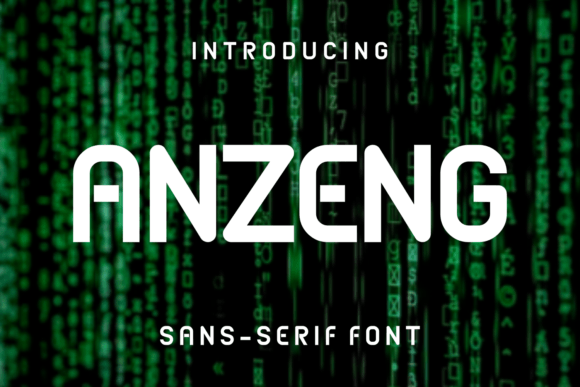
The Ultimate Guide to Anzeng Font: Elevate Your Designs with this Unique Sans Serif
I’ll never forget the time I was working on a project for a client who needed a font that was both modern and edgy. I spent hours scouring the internet for the perfect sans serif font, but nothing seemed quite right. That was until I stumbled upon Anzeng Font. This cool and unique font has been a game-changer for my designs, and I’m excited to share its awesomeness with you! 😊
An Honest Review of Anzeng Font
- ✨ **Clean and modern design**: Anzeng Font has a sleek and contemporary look that’s perfect for a wide range of projects.
- ✅ **Highly versatile**: Whether you’re designing a logo, brochure, or social media post, Anzeng Font adapts seamlessly to any topic or style.
- 💡 **Excellent legibility**: Even at small sizes, Anzeng Font remains crystal clear and easy to read.
While Anzeng Font is an amazing addition to any font library, there are a few minor things to keep in mind:
- 🤔 **Limited italic variations**: Anzeng Font doesn’t have a traditional italic style, which might be a drawback for some designers.
- ⚠️ **Occasional kerning issues**: As with any font, you might encounter some kerning quirks, especially when pairing Anzeng with other fonts.
A Practical Guide to Using Anzeng Font
- Experiment with **OpenType features** like ligatures and stylistic alternates to add visual interest.
The Backstory of Anzeng Font
While the origins of Anzeng Font are shrouded in mystery, it’s said that the font was created by a young designer who wanted to craft a typeface that would be both modern and timeless. Inspired by the urban landscape and cutting-edge technology, Anzeng Font was born.
| Author | lelevien |
| Q: What makes Anzeng Font unique? | A: Anzeng Font’s unique blend of modernity and edginess sets it apart from other sans serif fonts. |
| Q: Is Anzeng Font suitable for body text? | A: While Anzeng Font is legible, it’s best suited for headlines and titles. For body text, consider a font with more traditional proportions. |
In conclusion, Anzeng Font is an incredible asset for any design library. Its unique blend of modernity and edginess makes it perfect for a wide range of projects. With its excellent legibility, versatility, and OpenType features, Anzeng Font is sure to elevate your designs to the next level. **Give it a try and see the difference for yourself!** 🎉